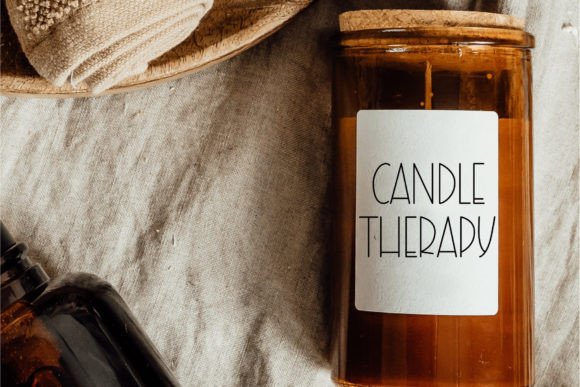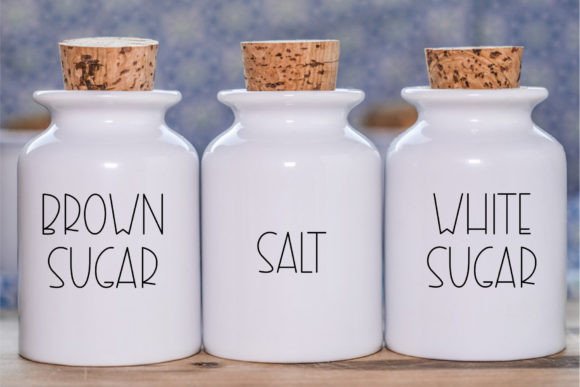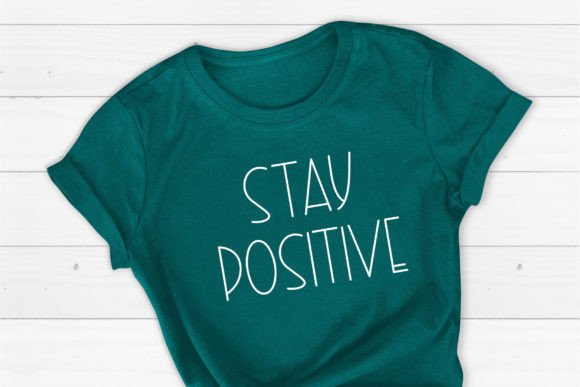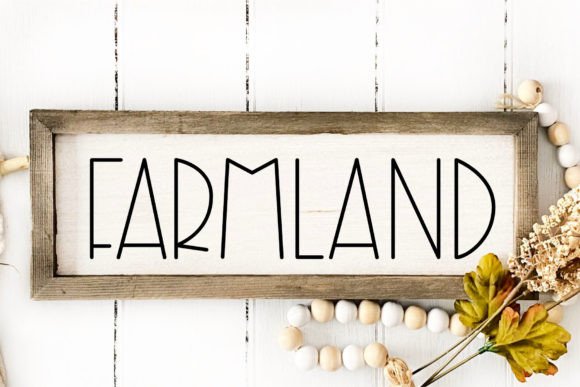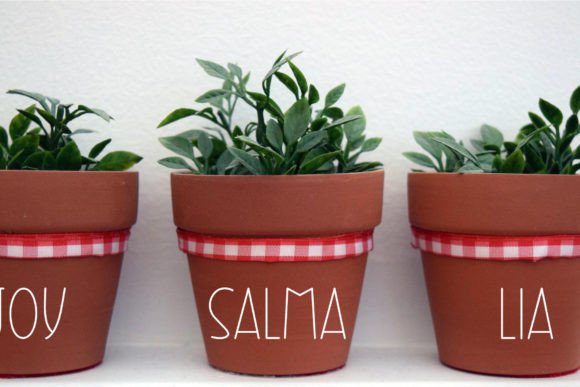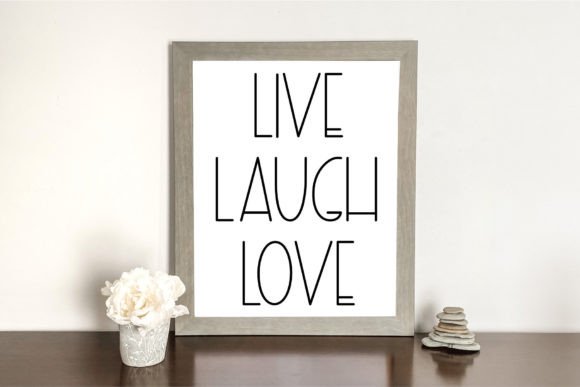
Introduction to Farmstand Market Font
Farmstand Market is a tall and skinny font.
It will add an incredibly joyful touch to your farmhouse designs Add this beautiful display font to each of your creative ideas and notice how it makes them stand out.
Farmstand Market Font offers exceptional quality and versatility, making it a valuable addition to your design toolkit. Whether you’re creating for personal projects or commercial use, Farmstand Market Font delivers professional results.